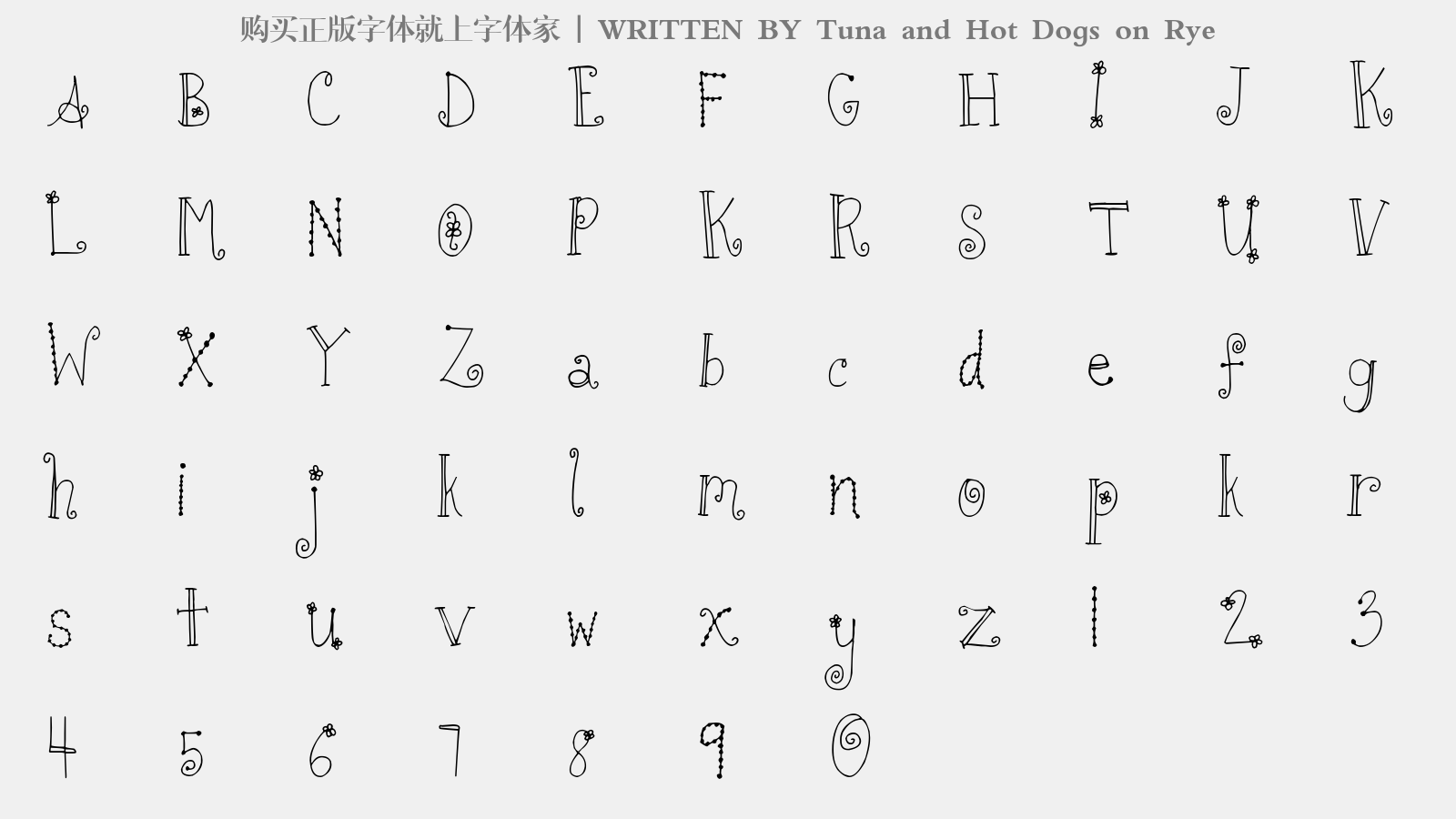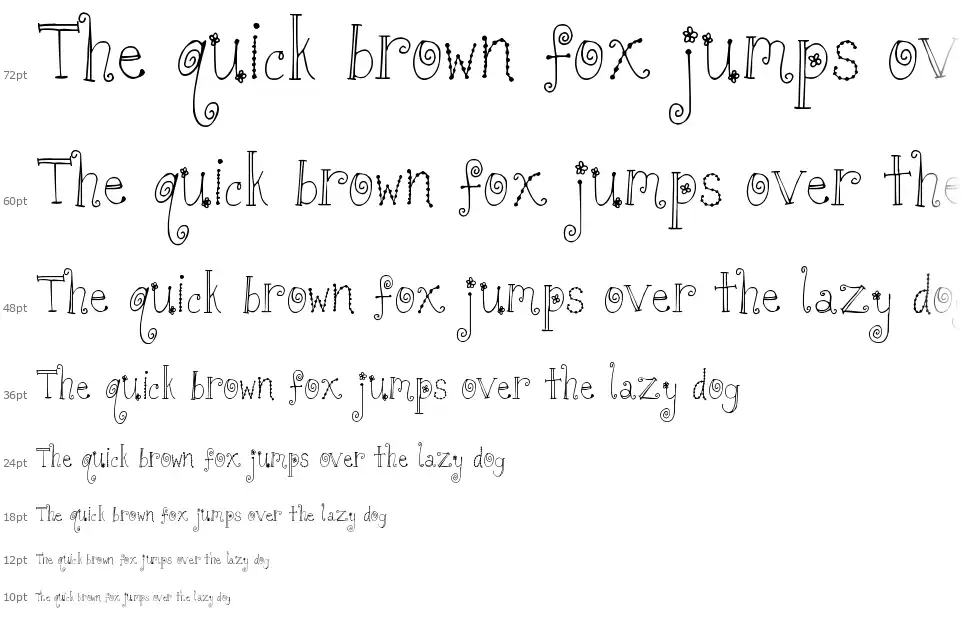
Tuna And Hot Dogs On Rye Font . Click here to create a custom image with your own text. Tuna and hot dogs on rye by kimberly geswein. Tuna & hot dogs on rye is a fancy type font that can be used on. Download tuna and hot dogs on rye font. Free download of tuna and hot dogs on rye font. Tuna & hot dogs on rye font download is available free from fontget. Tuna and hot dogs on rye. Tuna and hot dogs on rye font is available for free download for noncommercial, personal projects. Tuna and hot dogs on rye font is a fancy, curly font designed by kimberly geswein. Tuna and hot dogs on rye by typeface ? The tuna and hot dogs on rye font has been downloaded 11,662. Download and install the tuna and hot dogs on rye font by kimberly geswein. Looking for tuna and hot dogs on rye font designed by kimberly geswein? Tuna and hot dogs on rye font | designed by kimberly geswein | download tuna and hot dogs on rye for windows and mac | category: Download font free at fontriver.
Download tuna and hot dogs on rye font. Tuna & hot dogs on rye is a fancy type font that can be used on. Tuna and hot dogs on rye font | designed by kimberly geswein | download tuna and hot dogs on rye for windows and mac | category: Tuna and hot dogs on rye by typeface ? Looking for tuna and hot dogs on rye font designed by kimberly geswein? Click here to create a custom image with your own text. The tuna and hot dogs on rye font has been downloaded 11,662. Tuna & hot dogs on rye font download is available free from fontget. Tuna and hot dogs on rye font is available for free download for noncommercial, personal projects. Download font free at fontriver.
Tuna And Hot Dogs On Rye Font Tuna and hot dogs on rye font is available for free download for noncommercial, personal projects. Download font free at fontriver. Click here to create a custom image with your own text. Tuna and hot dogs on rye by kimberly geswein. Download tuna and hot dogs on rye font. Tuna & hot dogs on rye font download is available free from fontget. The tuna and hot dogs on rye font has been downloaded 11,662. Tuna and hot dogs on rye font is a fancy, curly font designed by kimberly geswein. Tuna and hot dogs on rye. Tuna and hot dogs on rye font | designed by kimberly geswein | download tuna and hot dogs on rye for windows and mac | category: Tuna and hot dogs on rye font is available for free download for noncommercial, personal projects. Free download of tuna and hot dogs on rye font. Download and install the tuna and hot dogs on rye font by kimberly geswein. Tuna and hot dogs on rye by typeface ? Looking for tuna and hot dogs on rye font designed by kimberly geswein? Tuna & hot dogs on rye is a fancy type font that can be used on.
Tuna and Hot Dogs on Rye字体免费下载和在线预览字体天下 Tuna And Hot Dogs On Rye Font Download font free at fontriver. Tuna and hot dogs on rye font | designed by kimberly geswein | download tuna and hot dogs on rye for windows and mac | category: Download tuna and hot dogs on rye font. Tuna and hot dogs on rye font is a fancy, curly font designed by kimberly geswein. Tuna and hot dogs on. Tuna And Hot Dogs On Rye Font.
KG Tuna And Hot Dogs On Rye Font Click here to create a custom image with your own text. Tuna and hot dogs on rye font is available for free download for noncommercial, personal projects. Tuna and hot dogs on rye font is a fancy, curly font designed by kimberly geswein. Tuna and hot dogs on rye by typeface ? Tuna and hot dogs on rye by kimberly. Tuna And Hot Dogs On Rye Font.